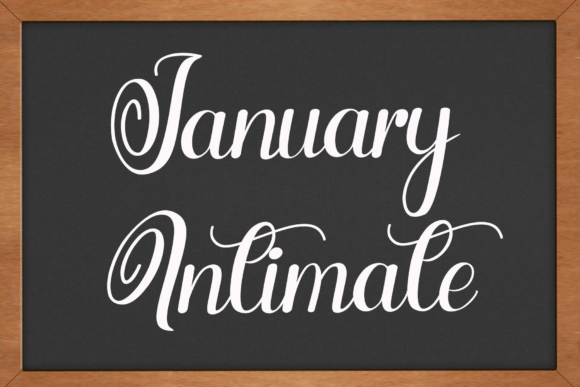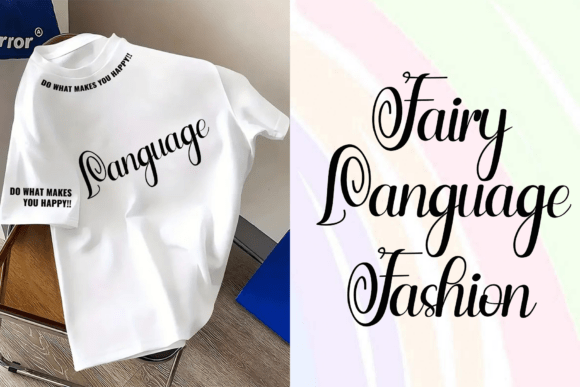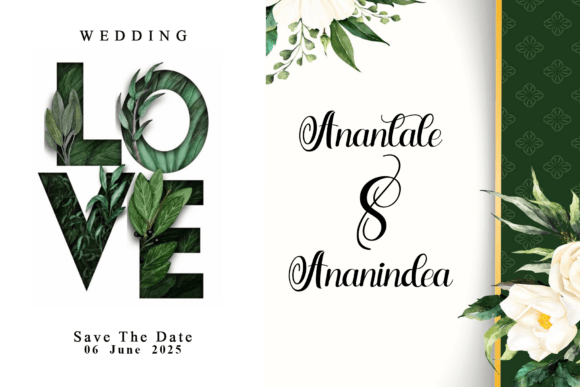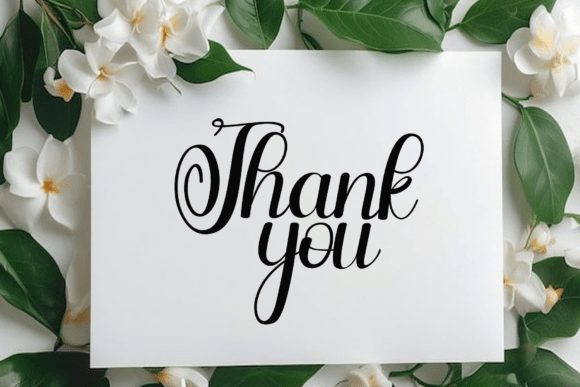
Introducing Anythings Font: Elevate Your Designs with Elegance and Sophistication
In the world of typography, few fonts capture the essence of charm and sophistication as beautifully as Anythings Font. This stunning script font is designed to bring a touch of elegance to your designs, making it perfect for a variety of creative projects. From wedding invitations and personal branding to elegant packaging and romantic quotes, Anythings Font is the ideal choice for designers and crafters looking to add a dash of refinement to their work.
The Beauty of Anythings Font
Anythings Font is a beautifully flowing script font that boasts smooth curves and a handwritten feel. Its unique blend of classic elegance and modern charm makes it a versatile choice for a wide range of design applications. The font’s flowing lines and delicate strokes evoke a sense of romance and sophistication, adding a touch of luxury to any design.
Perfect for Wedding Invitations and Personal Branding
Wedding invitations and personal branding are two areas where Anythings Font truly shines. Its elegant and refined appearance makes it perfect for wedding stationery, including invitations, save-the-date cards, and thank-you notes. For personal branding, Anythings Font can add a touch of sophistication to logos, business cards, and social media graphics, helping to establish a strong and memorable visual identity.
Elegant Packaging and Romantic Quotes
Anythings Font is also an excellent choice for elegant packaging and romantic quotes. Its beautiful, flowing lines make it perfect for product labels, packaging, and point-of-sale displays. For romantic quotes and phrases, Anythings Font adds a touch of whimsy and charm, making it ideal for social media graphics, posters, and other visual content.
Why Choose Anythings Font?
So, why choose Anythings Font for your design projects? Here are just a few reasons:
- Elegant and Refined: Anythings Font boasts a sophisticated and elegant appearance that’s perfect for high-end designs.
- Versatile: The font’s versatility makes it suitable for a wide range of design applications, from wedding invitations to packaging and more.
- Easy to Read: Anythings Font is clear and easy to read, making it perfect for both digital and print designs.
- Unique: The font’s unique blend of classic elegance and modern charm sets it apart from other script fonts.
Tips for Using Anythings Font
To get the most out of Anythings Font, here are a few tips to keep in mind:
- Use it Sparingly: Anythings Font is a statement font, so use it sparingly to add emphasis and elegance to your designs.
- Pair it with Other Fonts: Combine Anythings Font with other fonts to create a unique and visually appealing typography scheme.
- Experiment with Colors: Try pairing Anythings Font with different colors and textures to add depth and interest to your designs.
In conclusion, Anythings Font is a beautifully flowing script font that radiates charm and sophistication. Its smooth curves and handwritten feel make it perfect for a variety of design applications, from wedding invitations and personal branding to elegant packaging and romantic quotes. With its elegant and refined appearance, versatility, and ease of use, Anythings Font is an excellent choice for designers and crafters looking to elevate their designs and add a touch of luxury to their work.